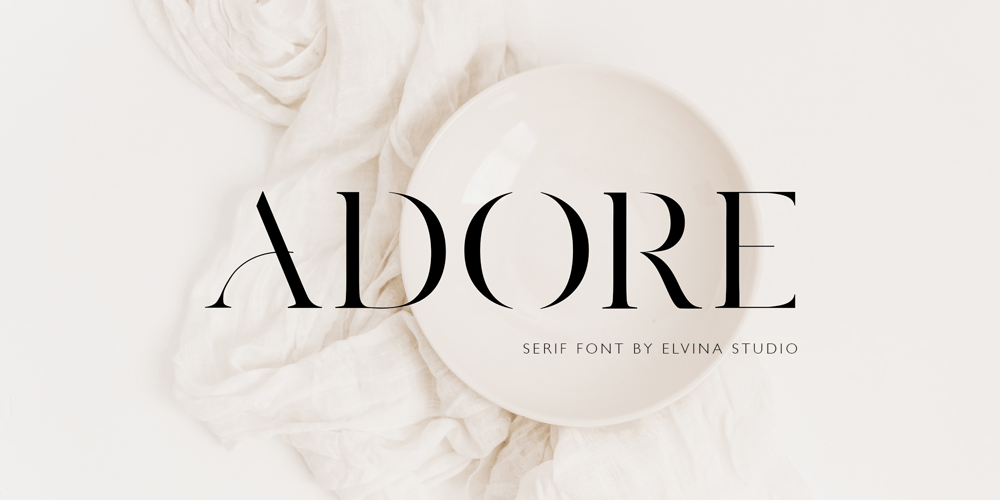
Adore Serif Font Family was designed by Elvina Gafarova and published by Elvina Studio. Adore Serif contains 2 styles and family package options. Adore font is an elegant serif typeface with delicate details. This neat font can contribute to the modern and fashionable appeal of the brand.Perfectly suited to logo, branding, signature, wedding cards, packaging design, stationery, website design and more.